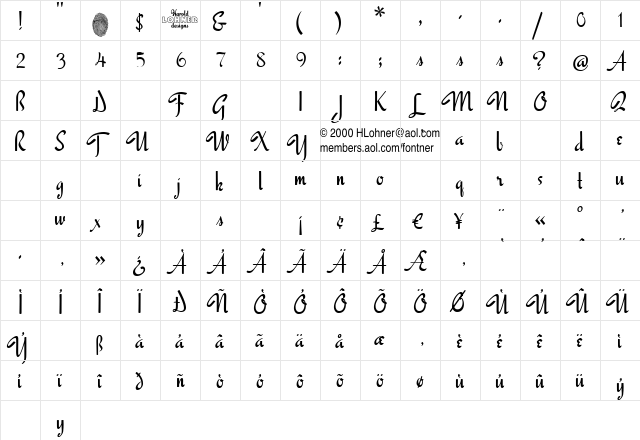
Famous Label Trial
Design Context for Famous Label Typeface
Famous Label is a composed and adaptable typeface that performs quietly and consistently across a wide range of design contexts.